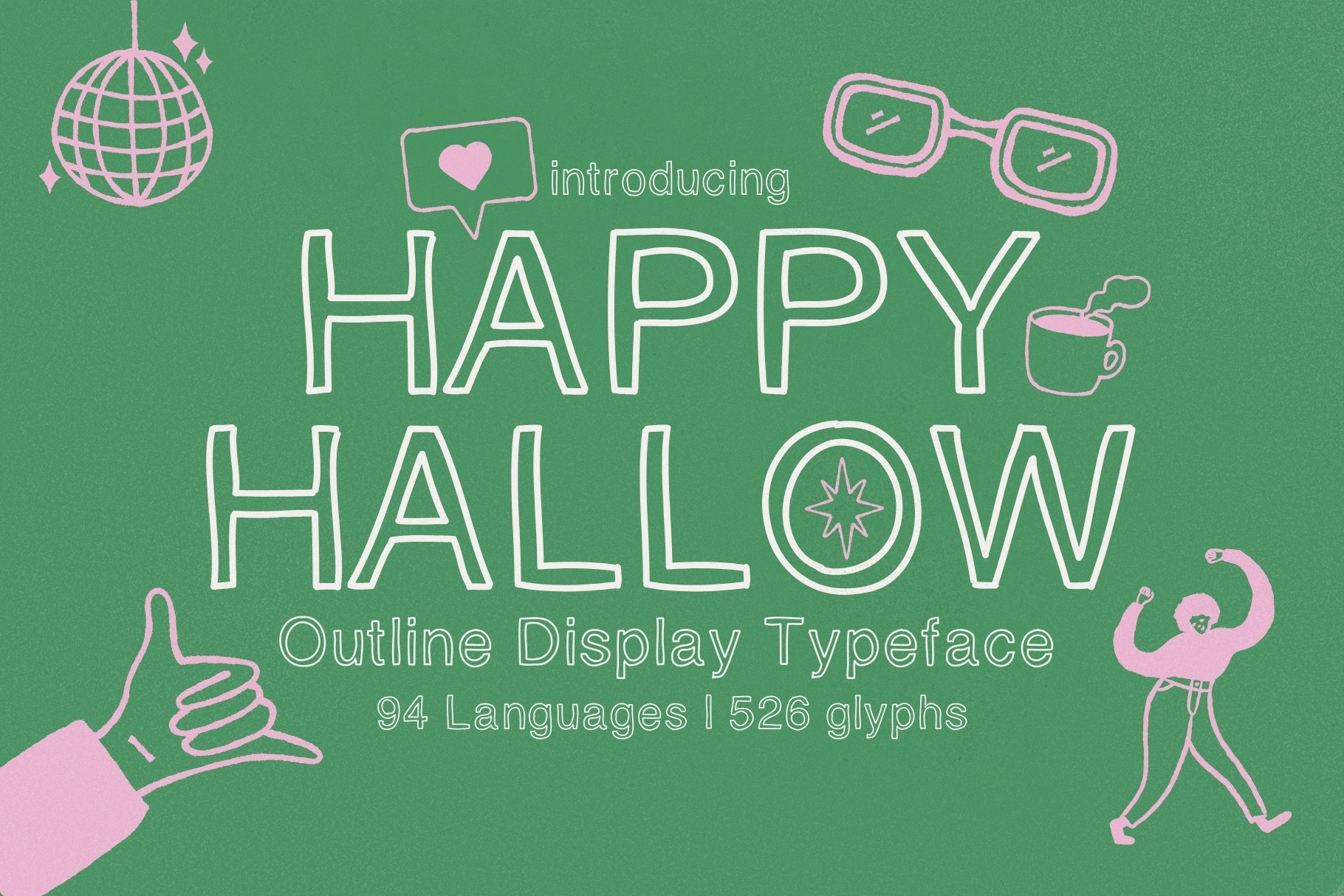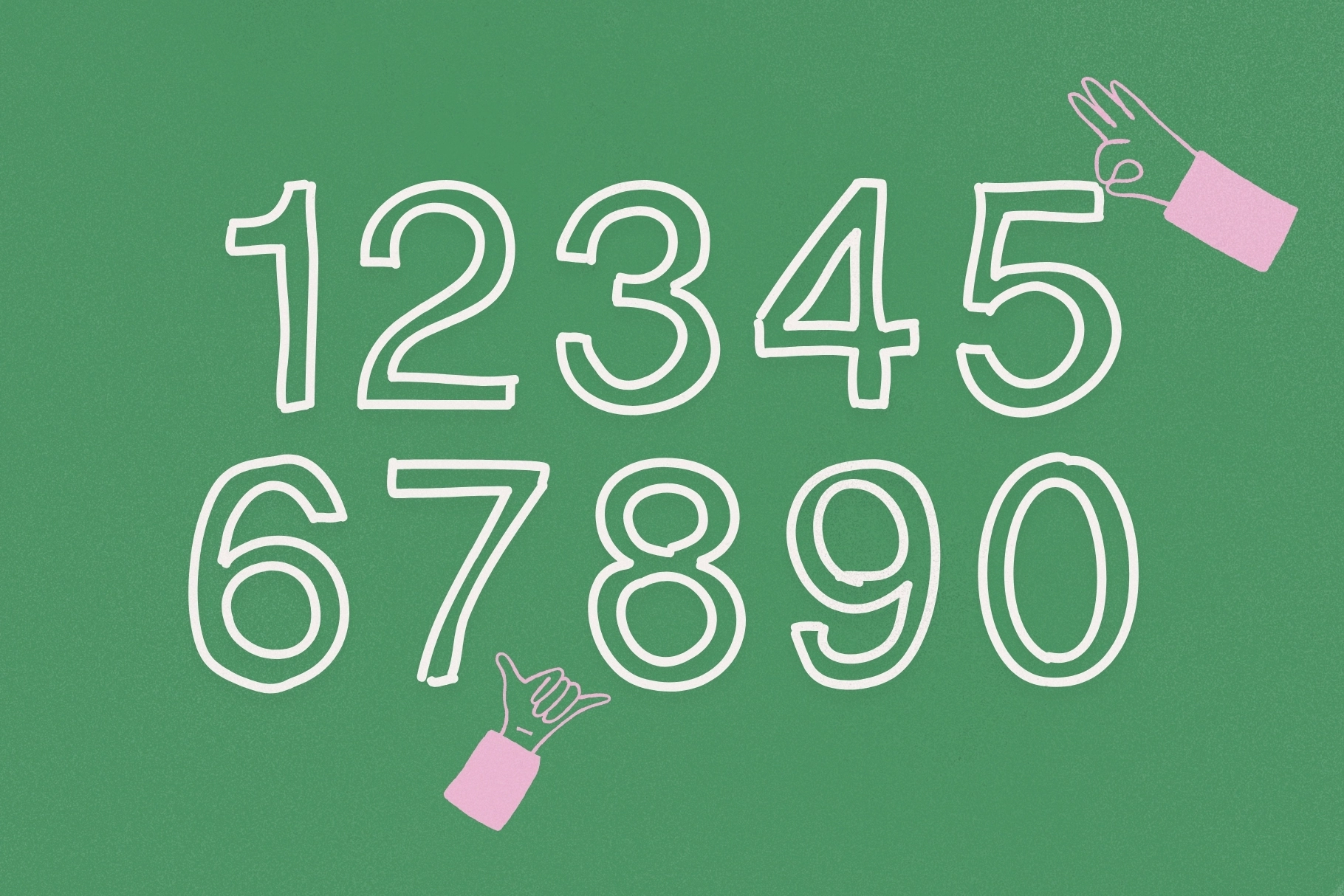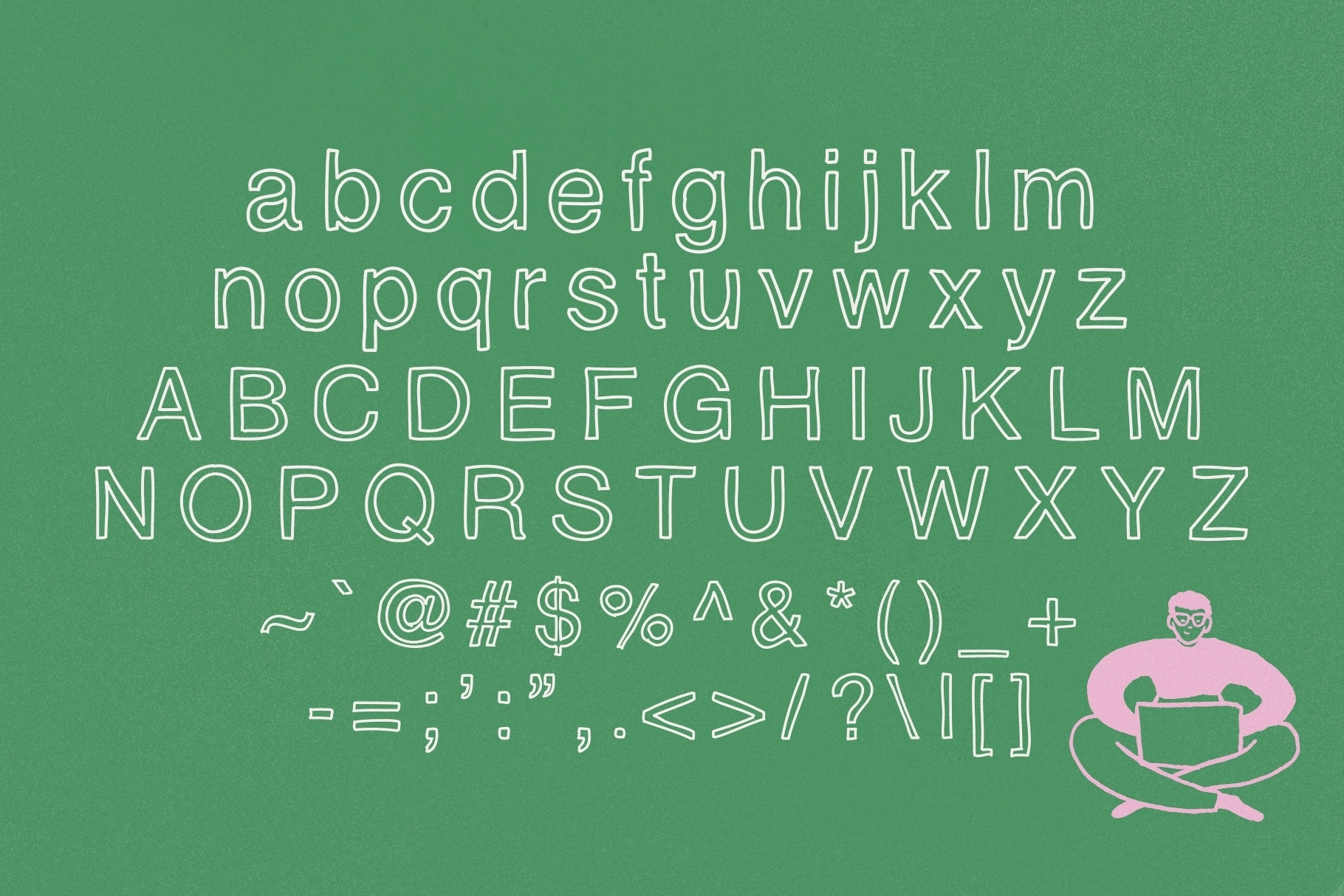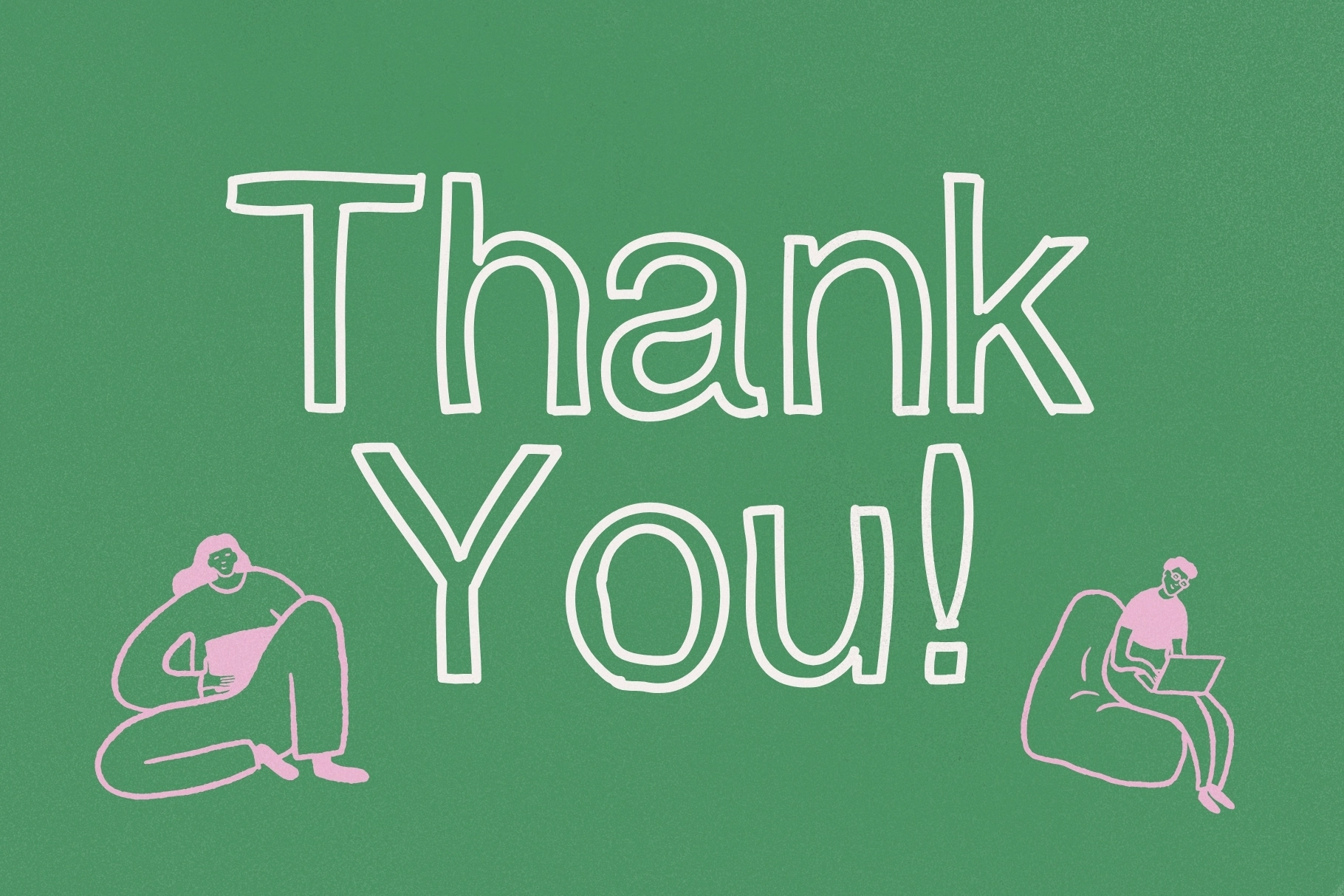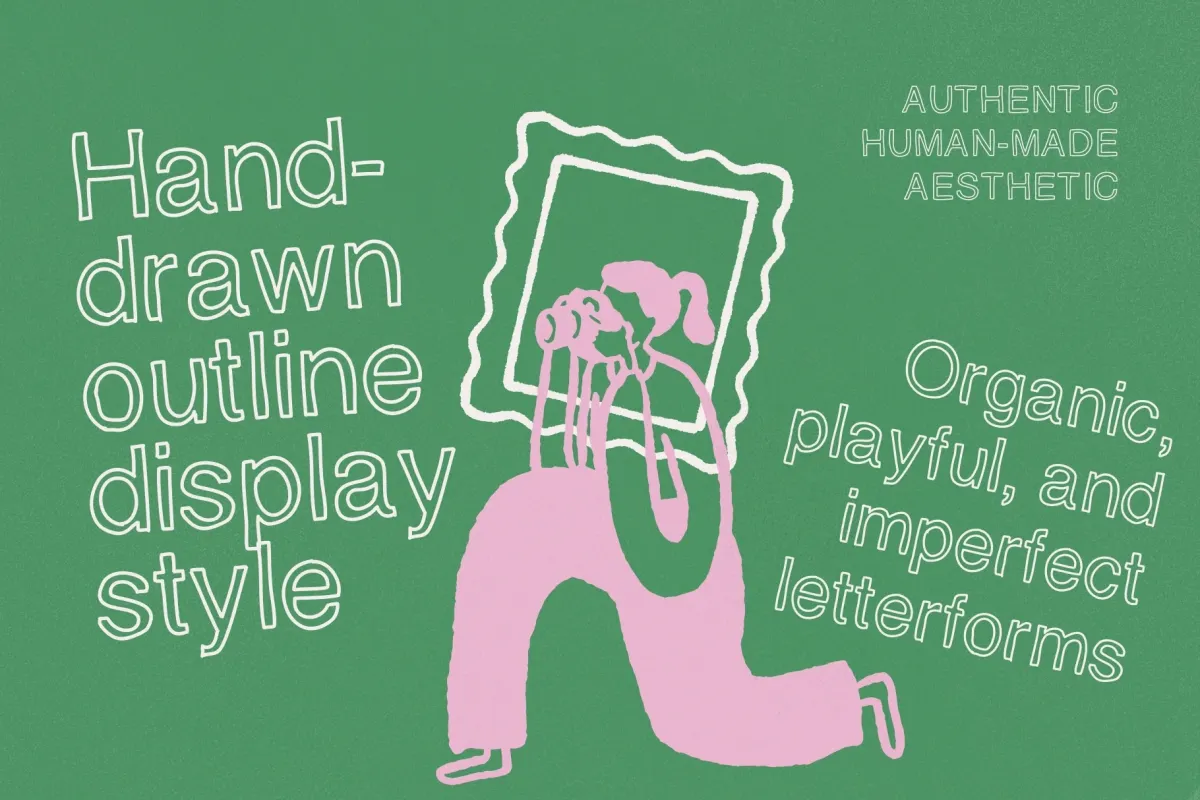
Happy Hallow - Outline Display Typeface
HappyHollow
Happy Hallow - Outline Display Typeface is a playful hand-drawn font filled with charm, warmth, and expressive personality. Built with organic strokes and imperfect outlines, it captures the natural rhythm of hand lettering, giving every word a lively and human touch.
Its sketch-like style creates a friendly and approachable feel, making it perfect for headlines, posters, social media graphics, packaging, and creative projects that need a fun and authentic visual voice.
- 526 glyphs
- Support for 94 languages
- Uppercase & lowercase characters
- Hand-drawn outline style